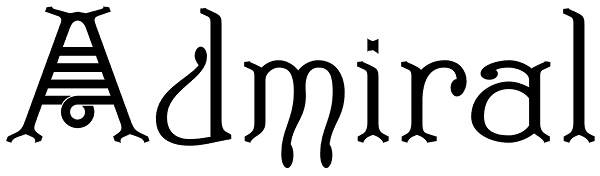
Admiral
Admiral was inspired by and extrapolated from the Art Nouveau lettering incised into the facade of a local hostelry. This gave us some inspiration for the capitals 'A', 'B', 'C', 'E', 'H', 'I', 'L', 'O', 'S', 'T' and 'U'; we then had great fun...
Admiral Small Capitals
Admiral